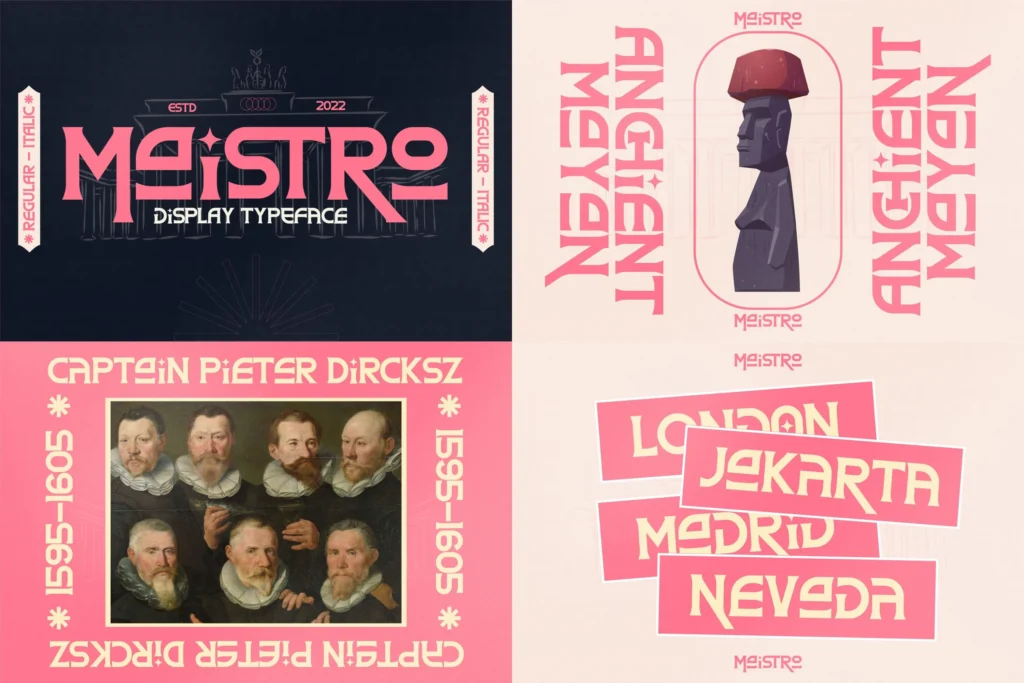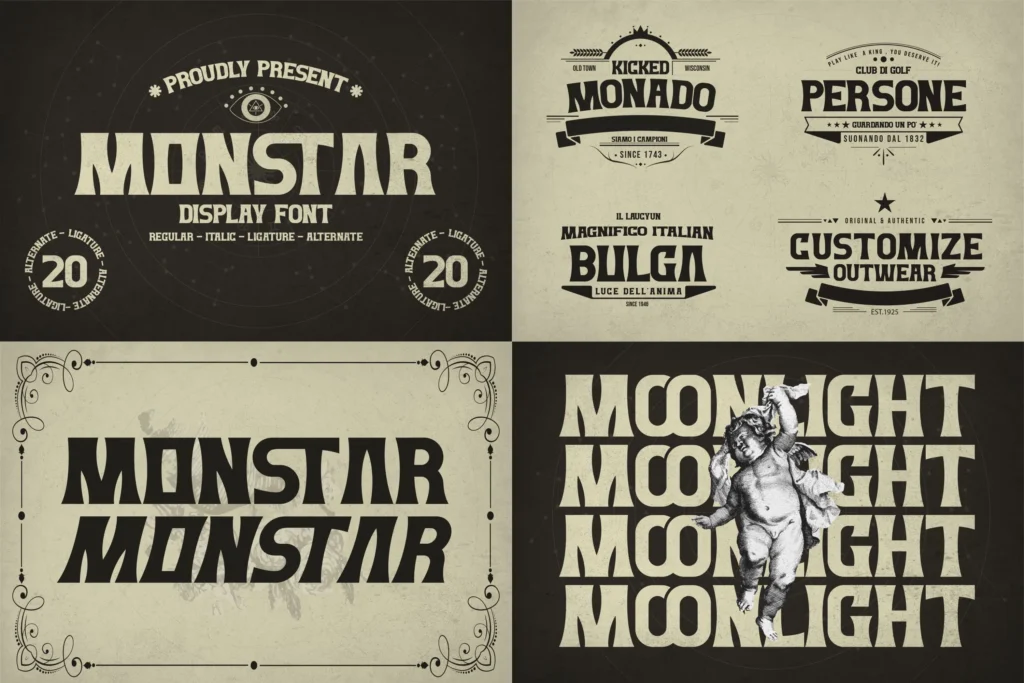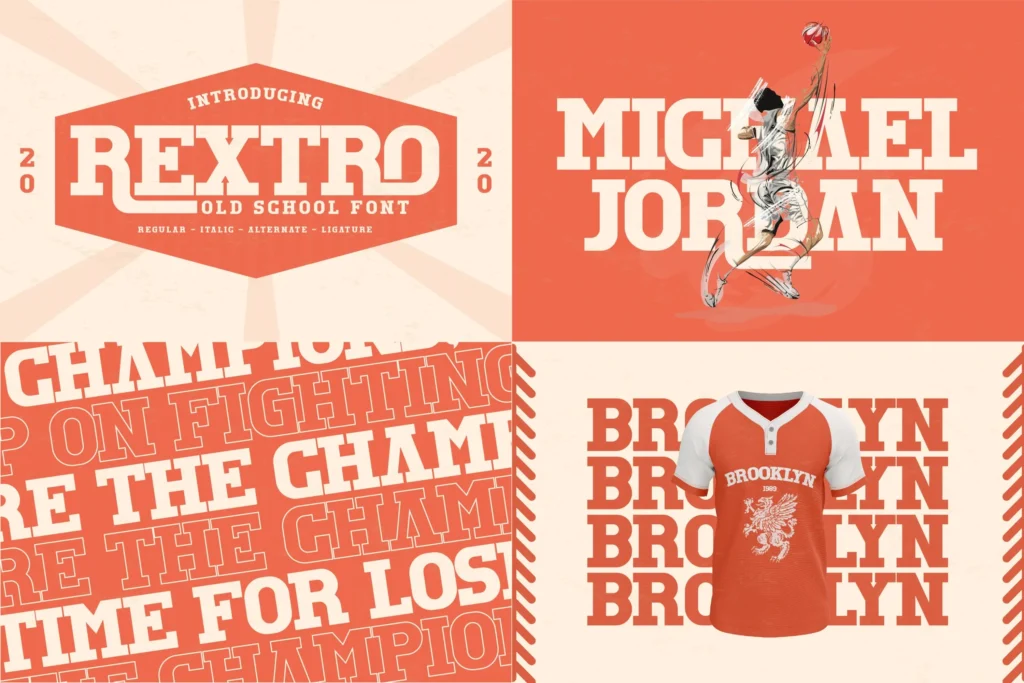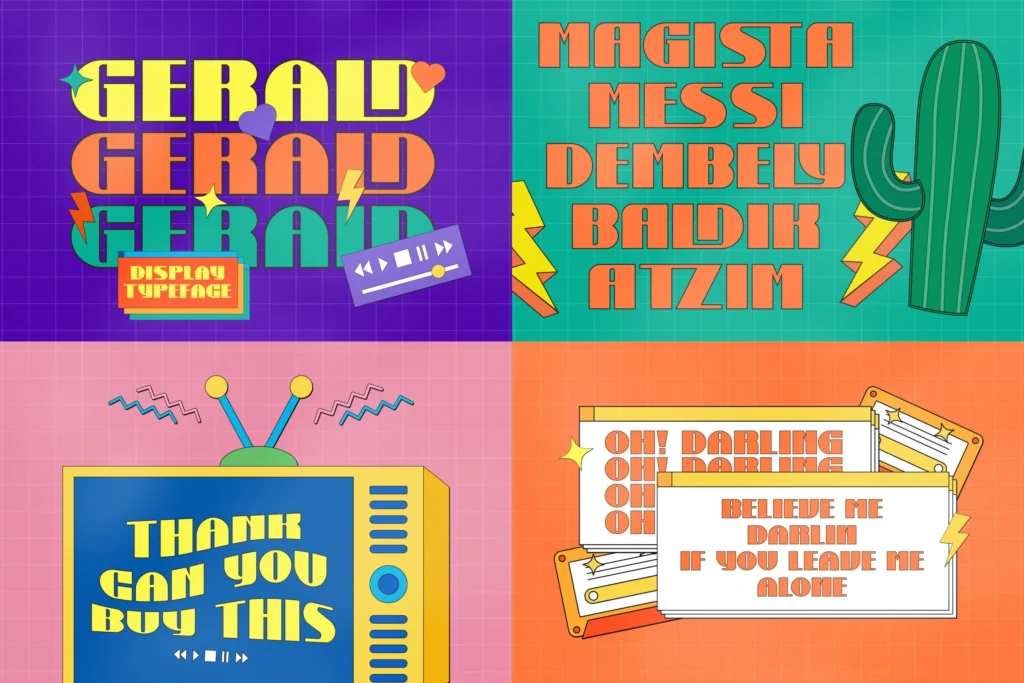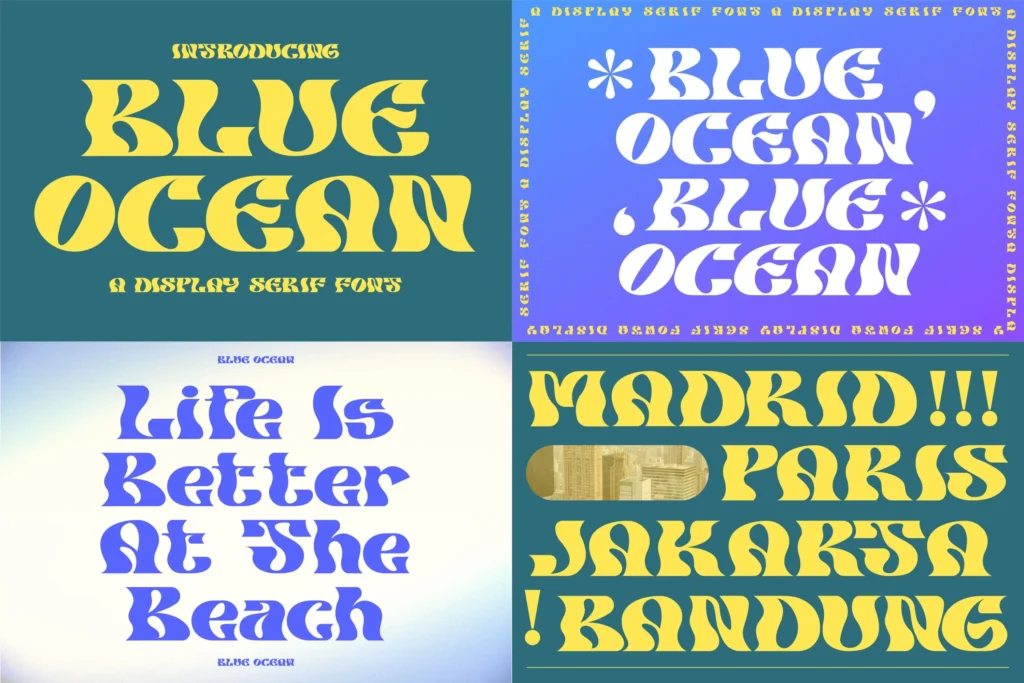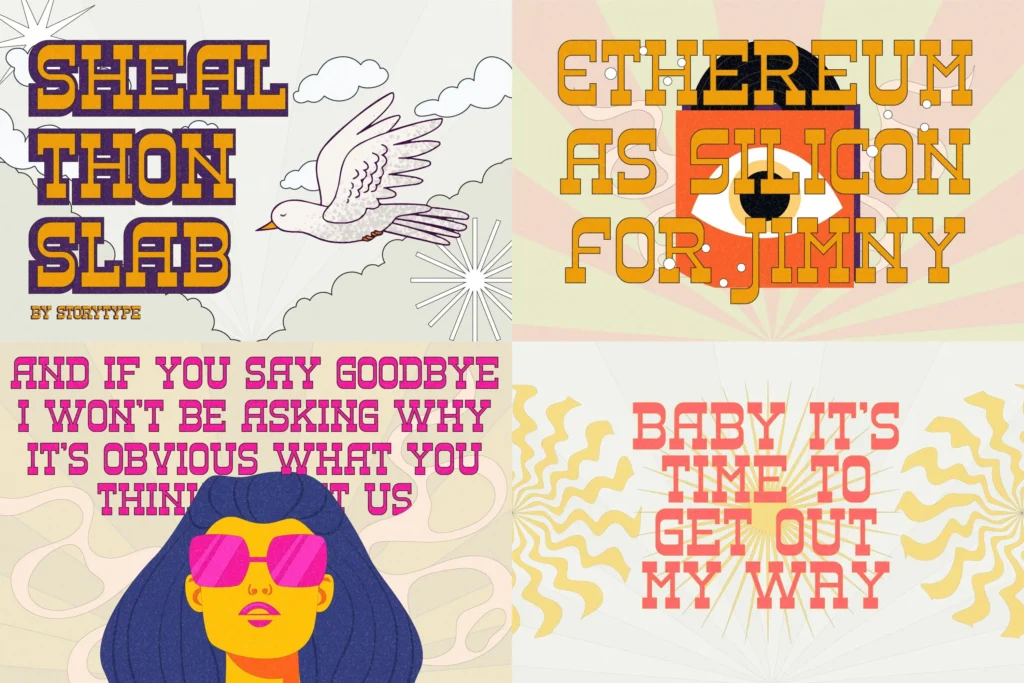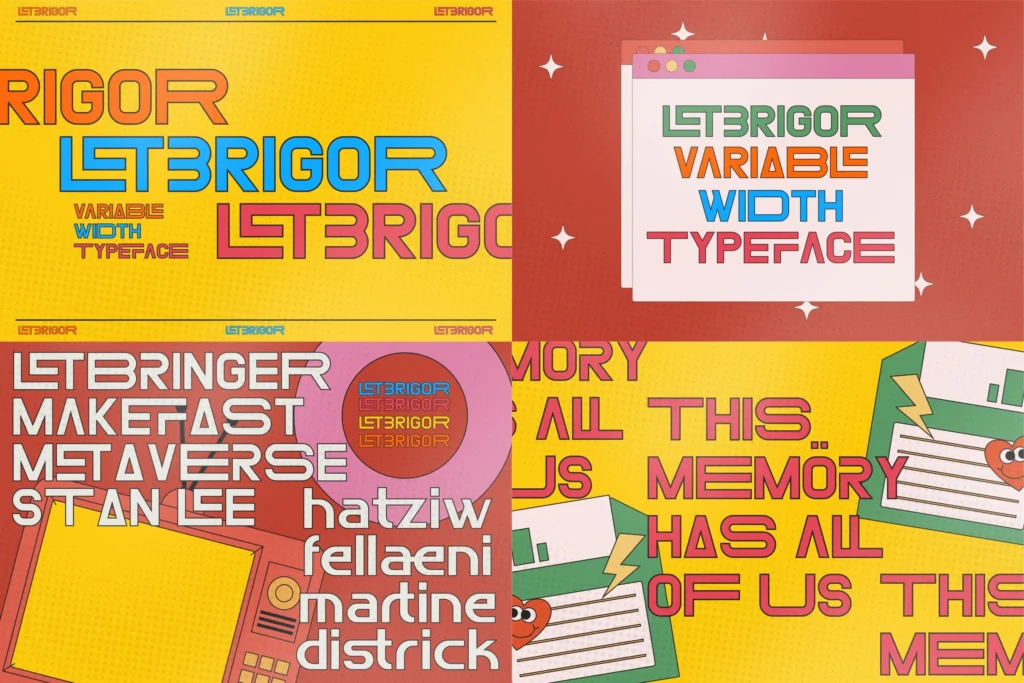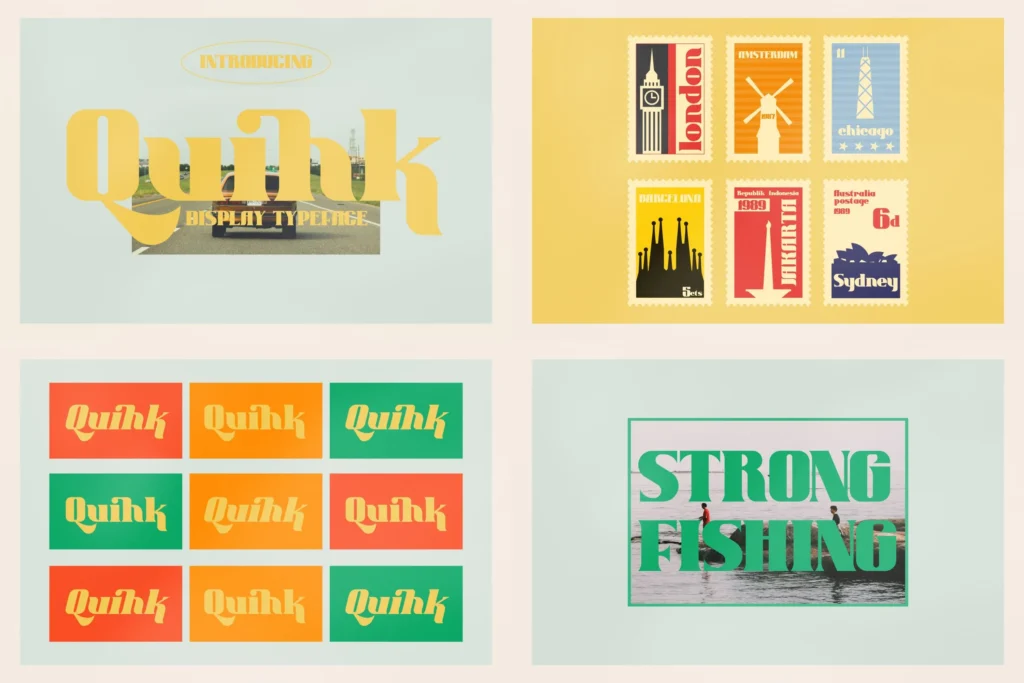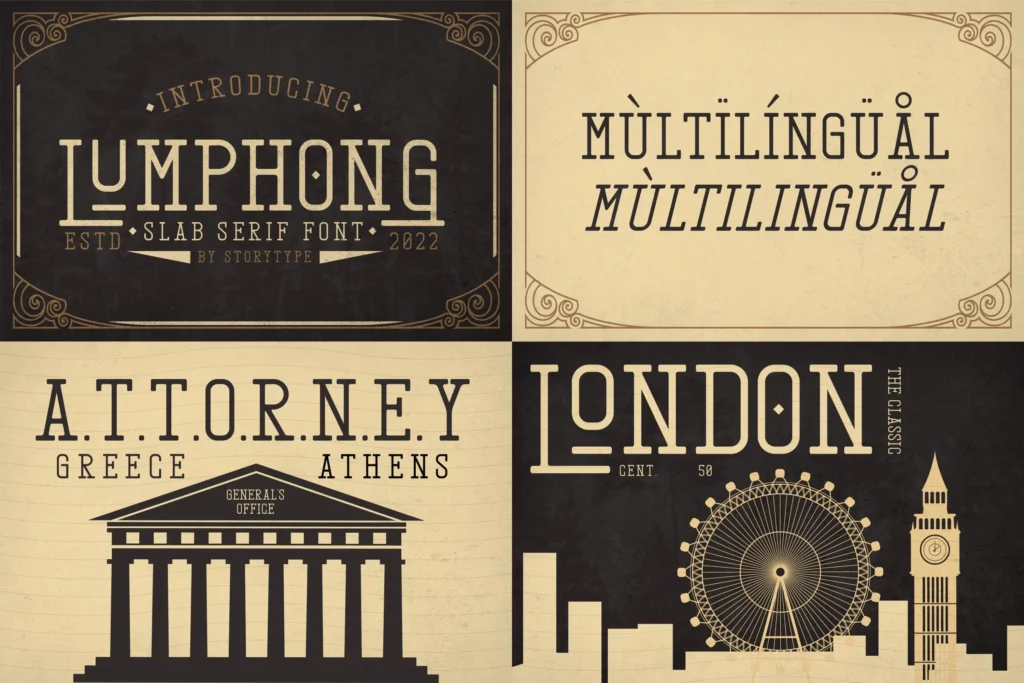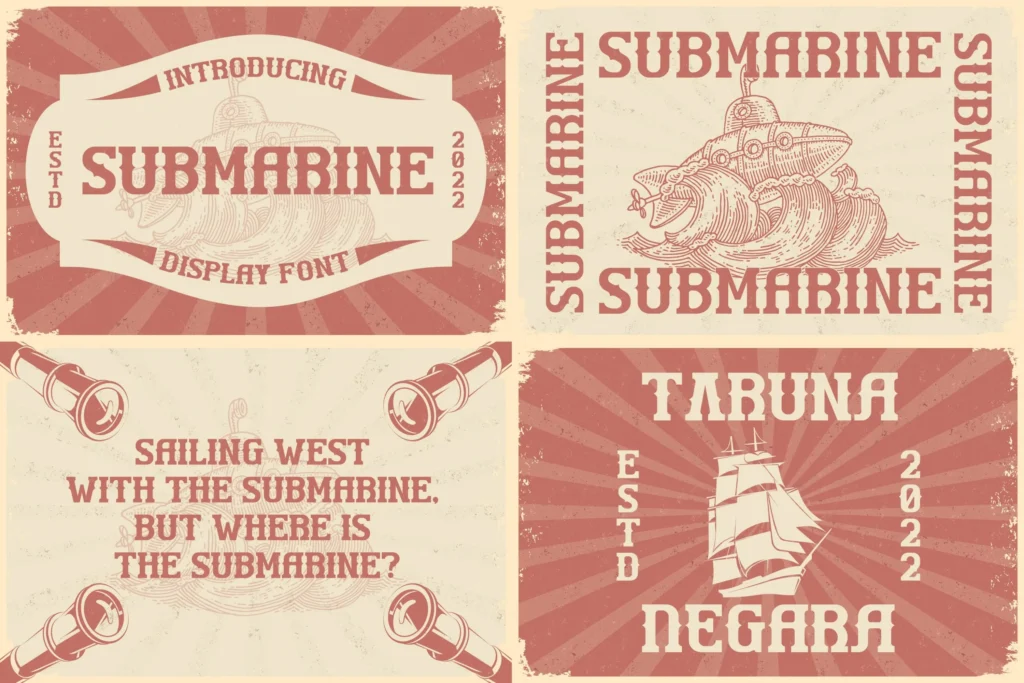
Mega Bundle From
Hello everyone! We are introducing our special bundle with a modern font display. This bundle is unique and suitable for your collection as your mainstay display font! With a unique curve that makes this bundle look modern and elegant.
Fonts included are:
BLUE OCEAN MODERN DISPLAY FONT (https://creativemarket.com/storytypefont/6695975-BLUE-OCEAN-MODERN-DISPLAY-FONT)
Cholvine Modern Display Font (https://crmrkt.com/jvKqpQ)
Gerald Display and Retro Style Font (https://crmrkt.com/XDwR18)
Letbrigor Typeface Font (https://crmrkt.com/0dov6r)
Lumphong Slab Serif Font (https://crmrkt.com/dQk4vb)
Maistro Modern Display Font (https://crmrkt.com/Qx3dVo)
Monstar Display Font (https://crmrkt.com/VrDjkr)
Quihk Modern and Classy Display Font (https://crmrkt.com/yorOk0)
Rextro Old School Font (https://crmrkt.com/eM7az4)
SHEAL THON SLAB Display Font (https://crmrkt.com/vNzroN)
SUBMARINE Display Font (https://crmrkt.com/mWNPw6)